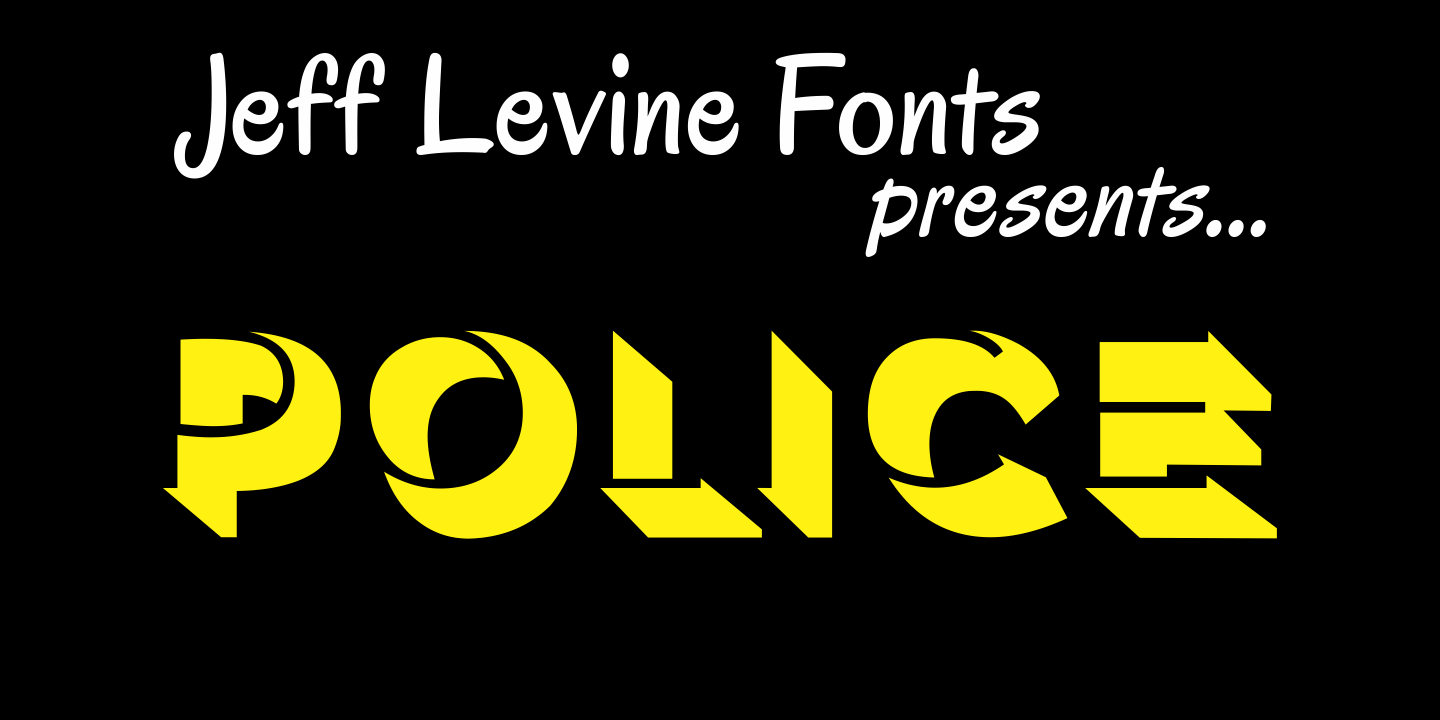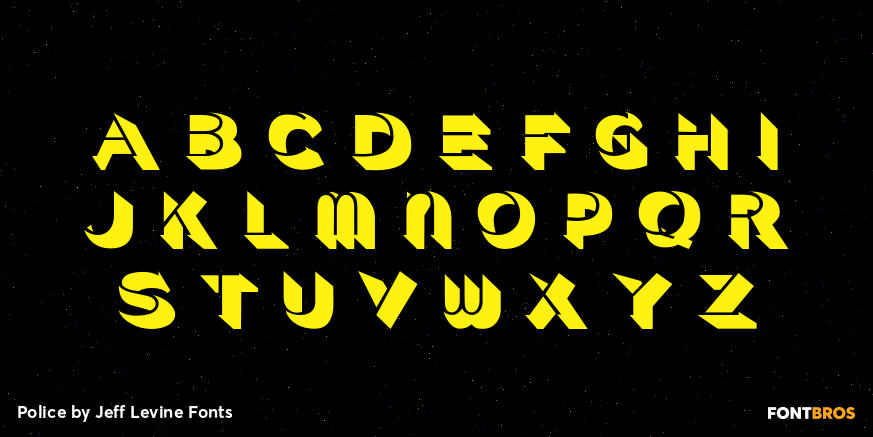
Police
Police JNL was modeled from one of the many fonts created by the late Alf Becker exclusively for Signs of the Times magazine during the 1930s through the 1950s.
This was a bit of a difficult design to translate into a digital font file, because the individual characters did not follow a formal structure as to the width and length of the cast shadows or the letter shapes – such is the way of the hand-lettered alphabet.
Police JNL has a limited character set. The basic A-Z character is on the upper and lower case keys, along with numbers, some punctuation and the dollar and cents signs.